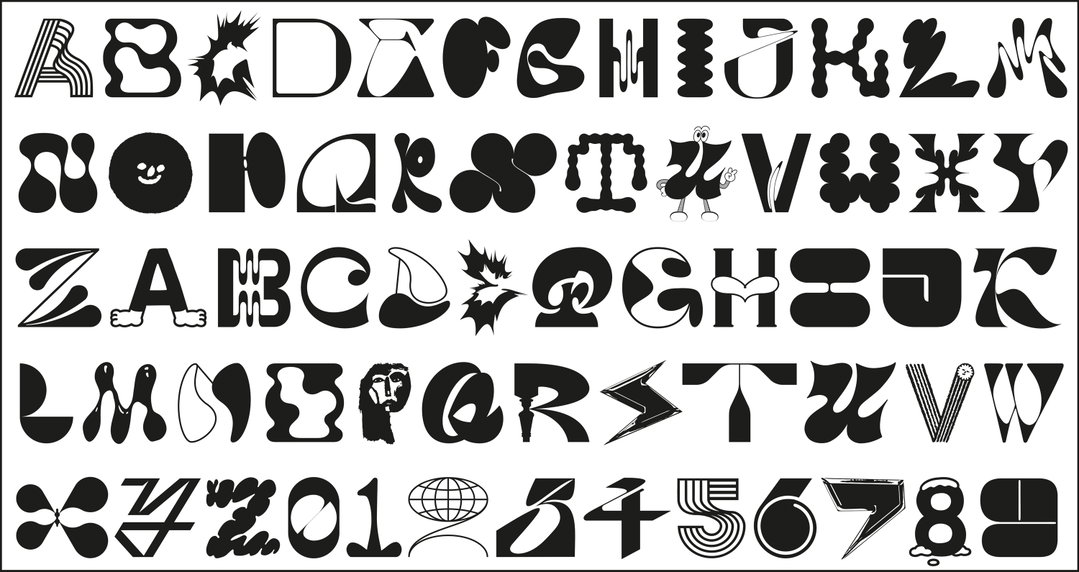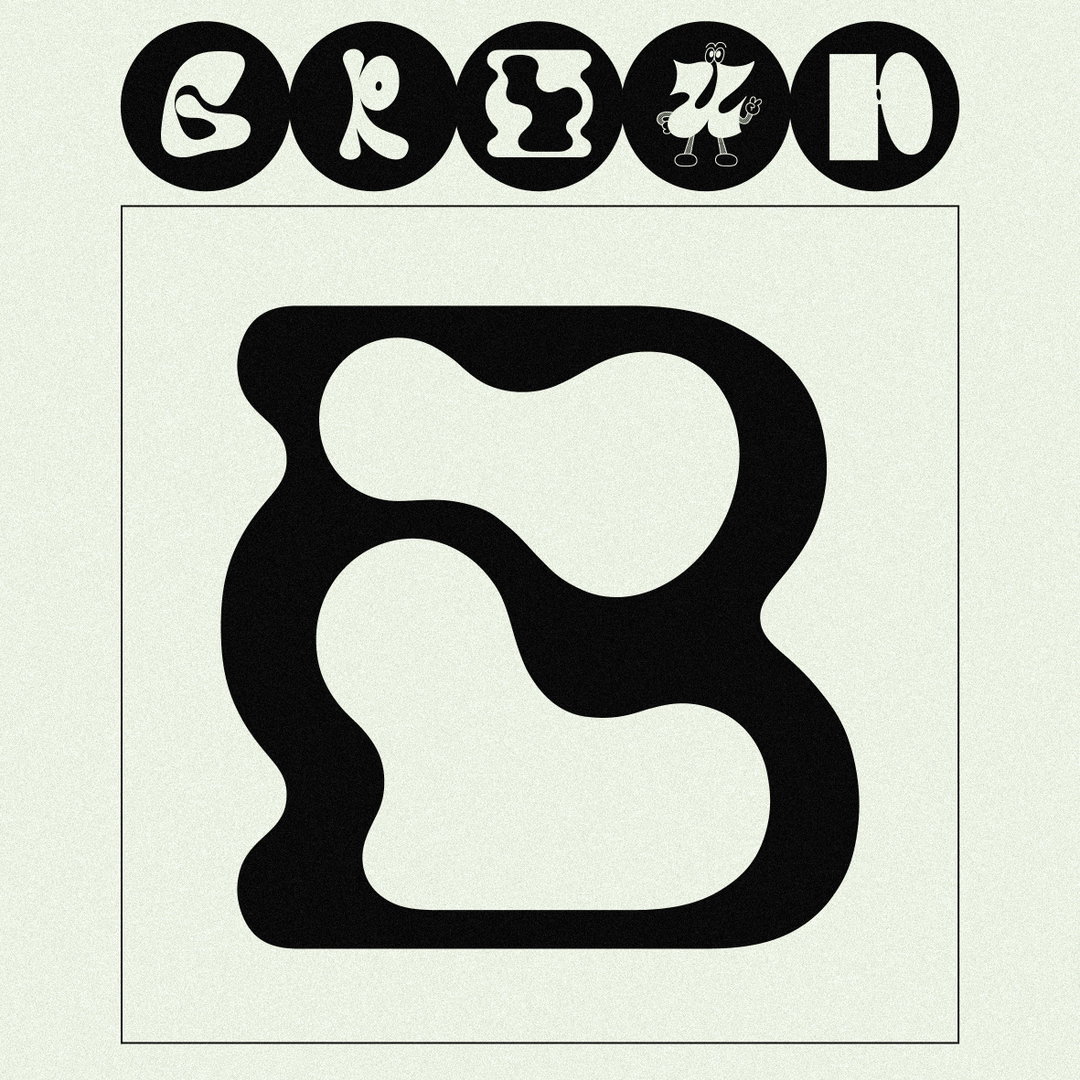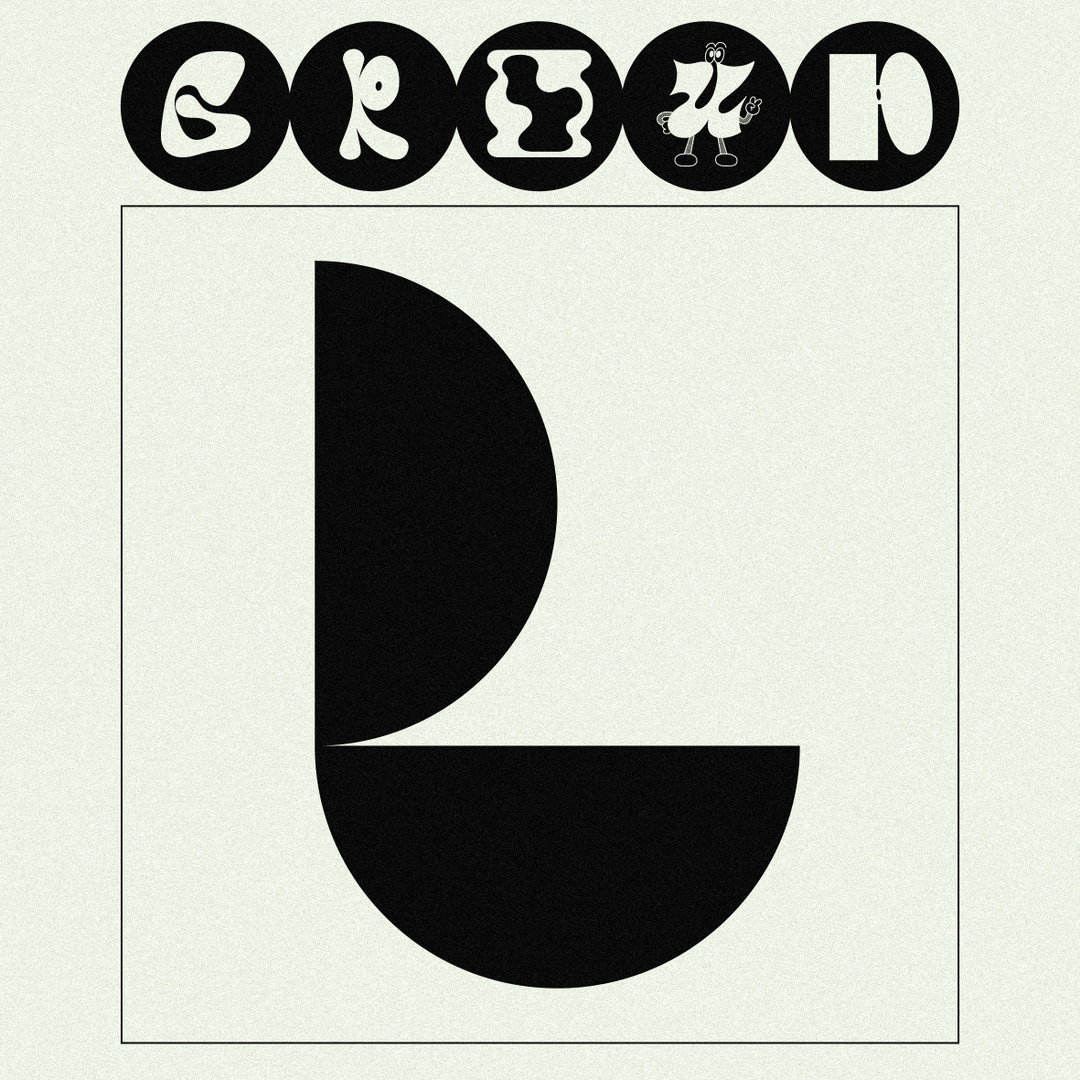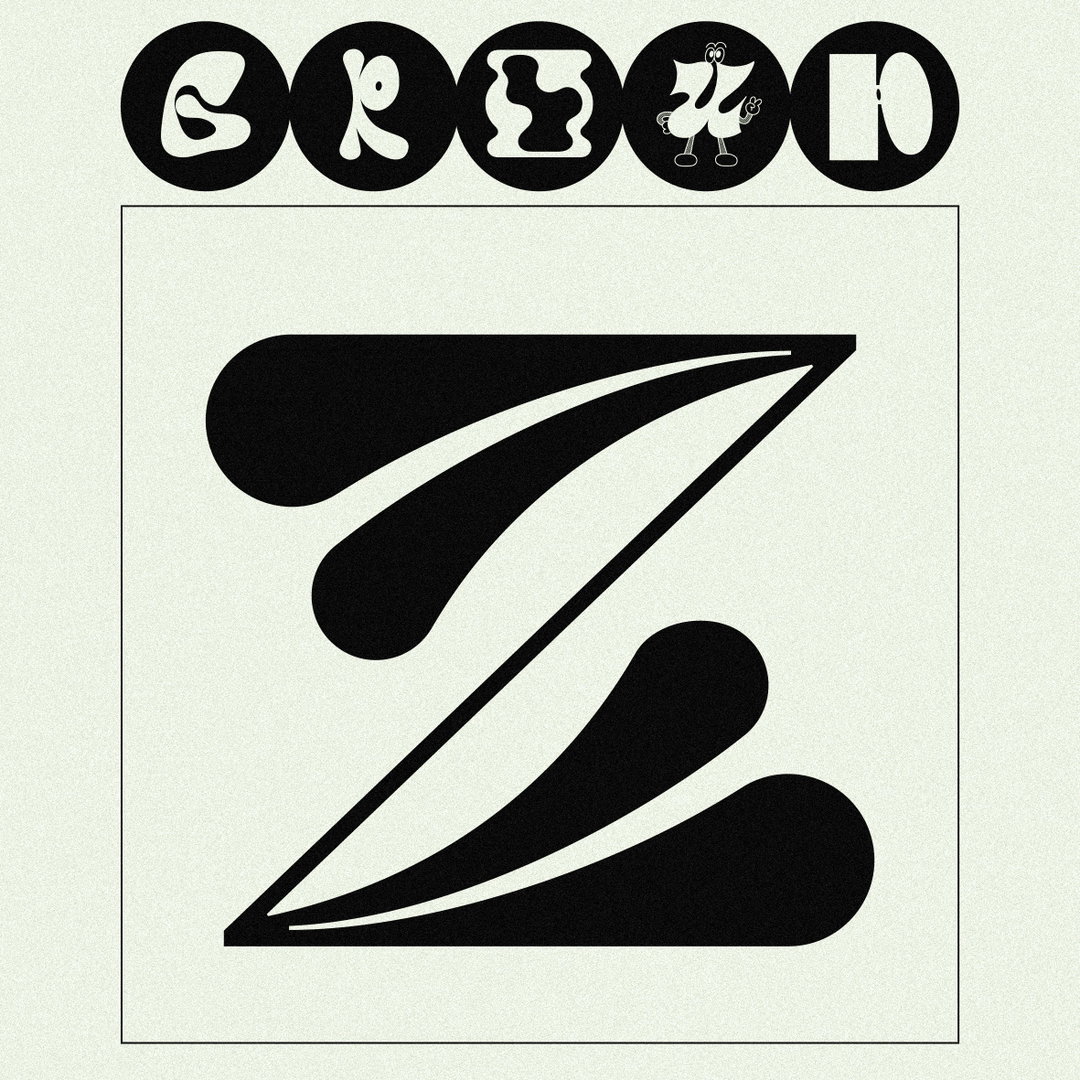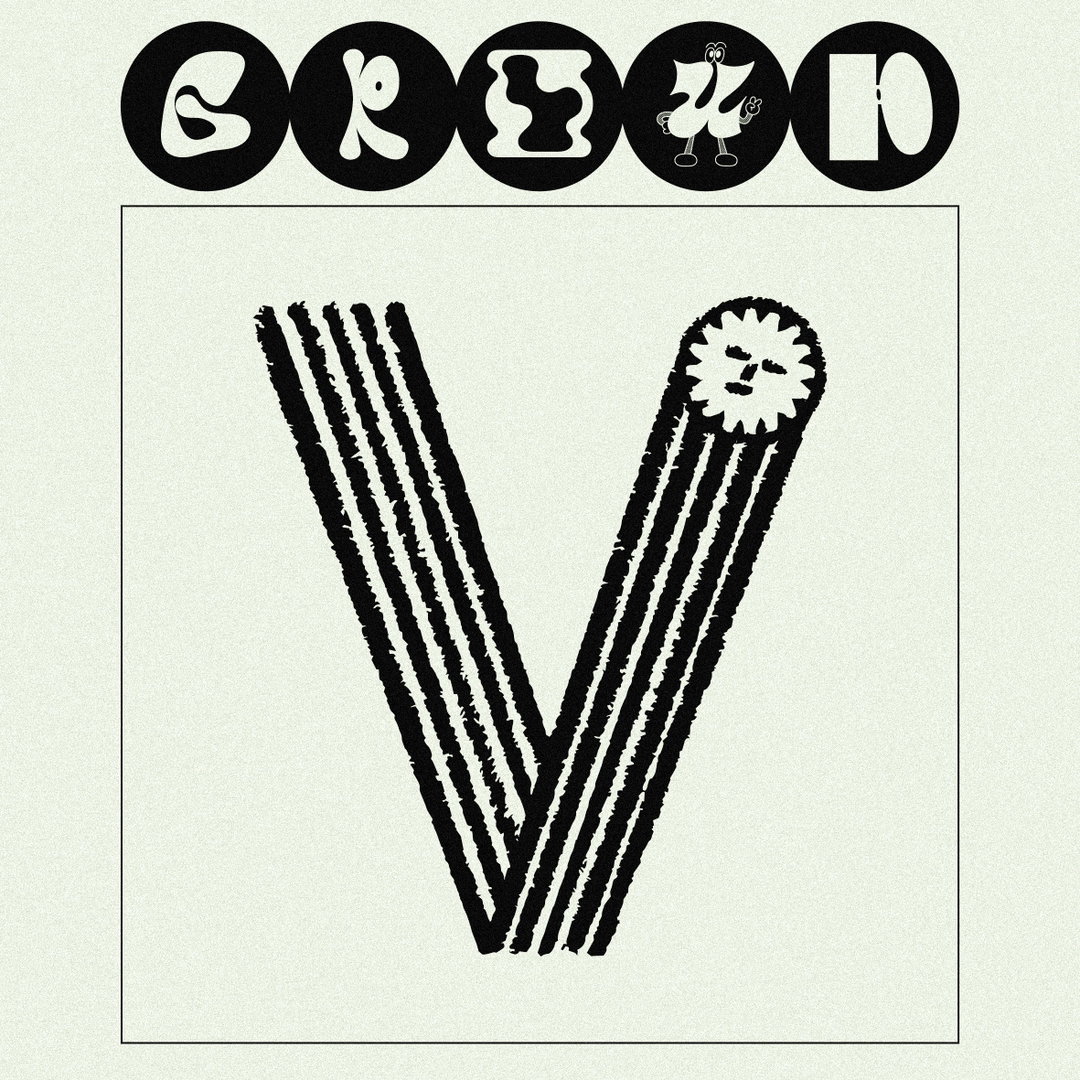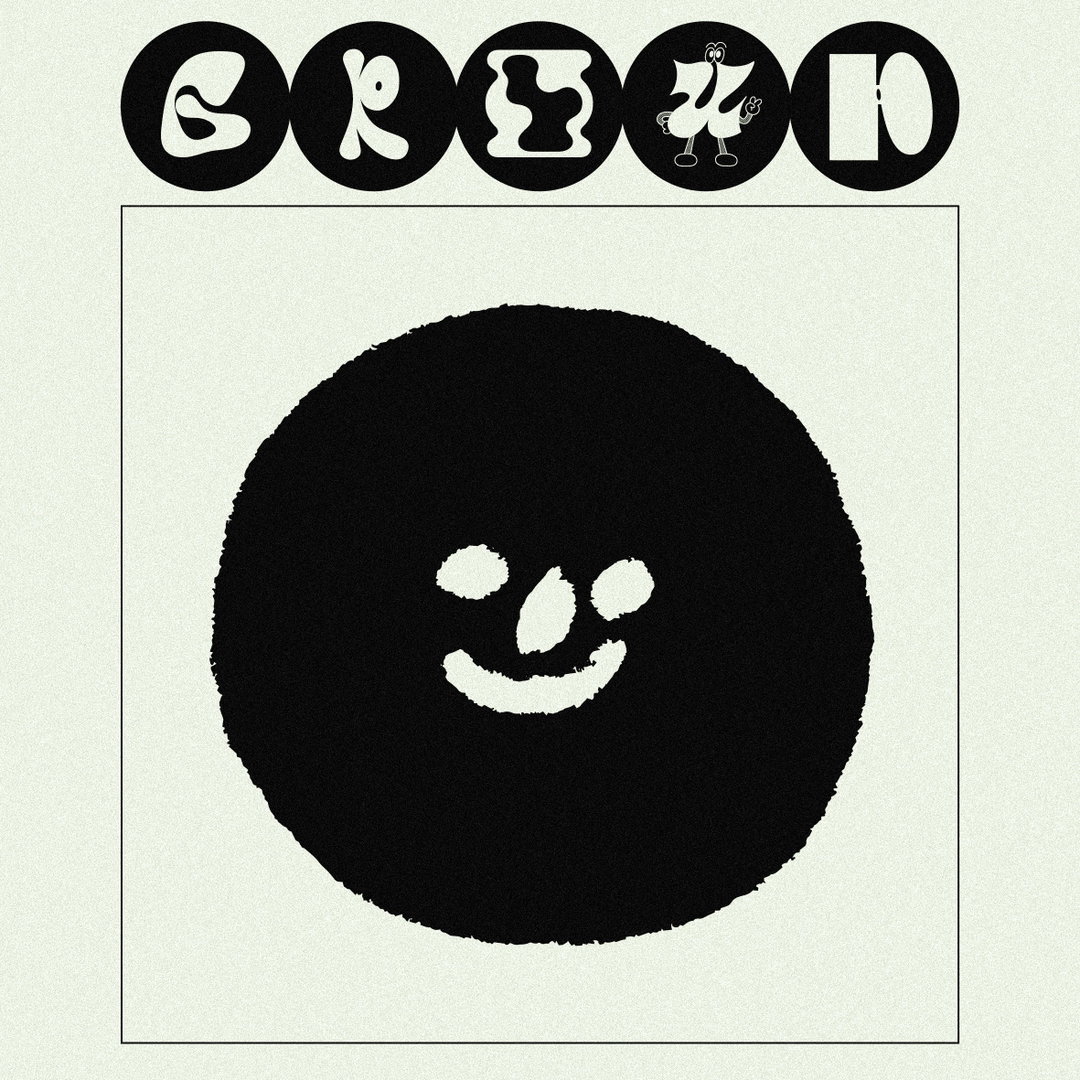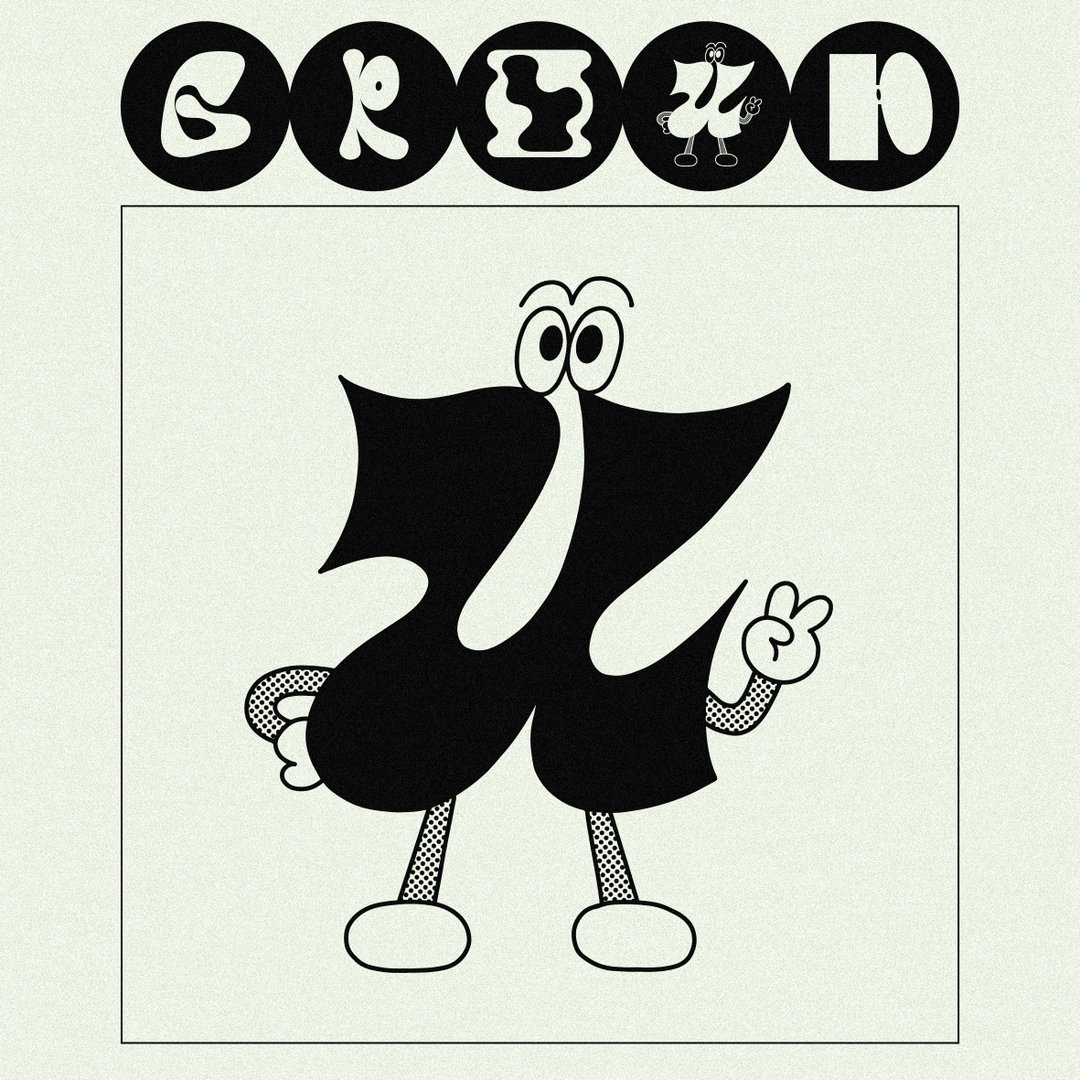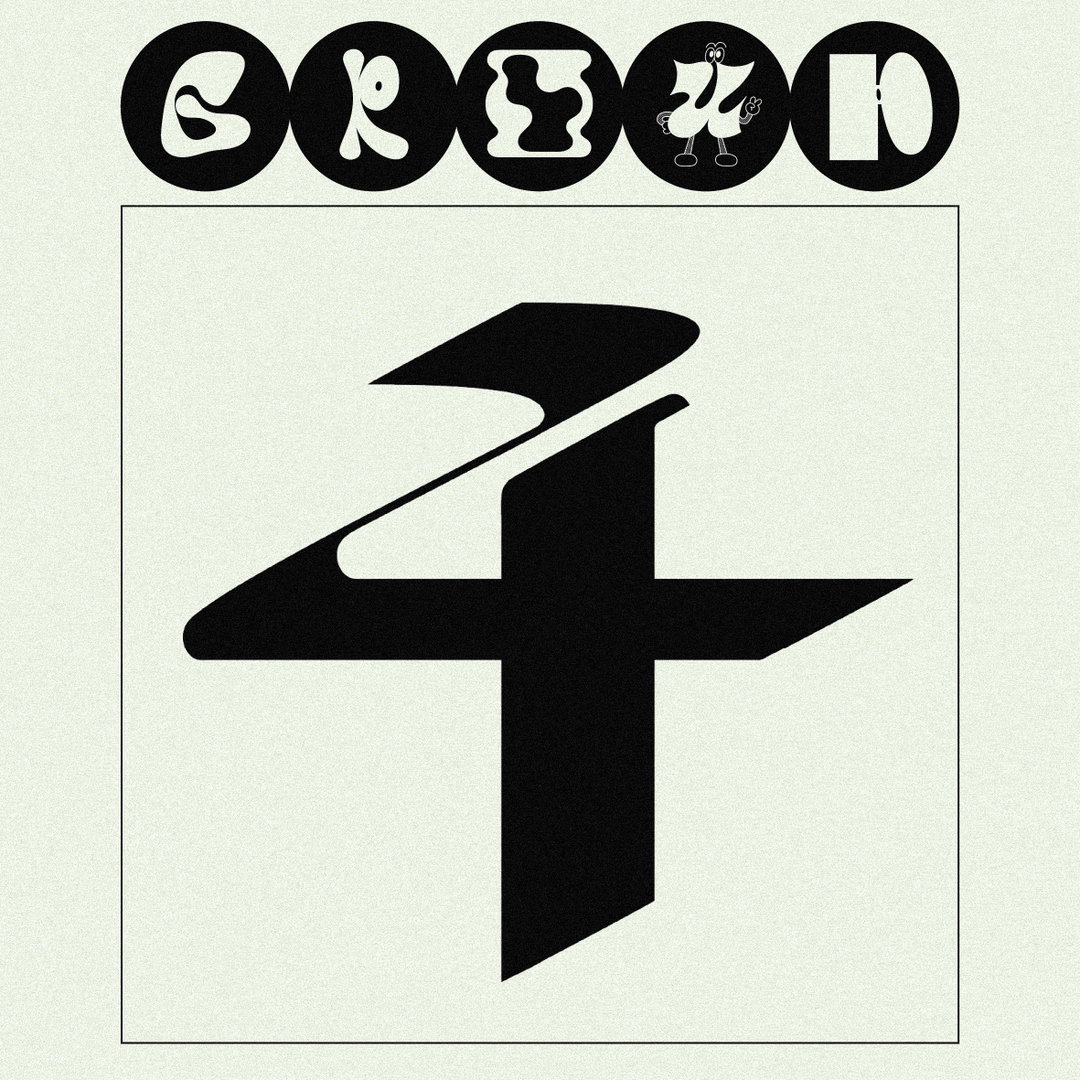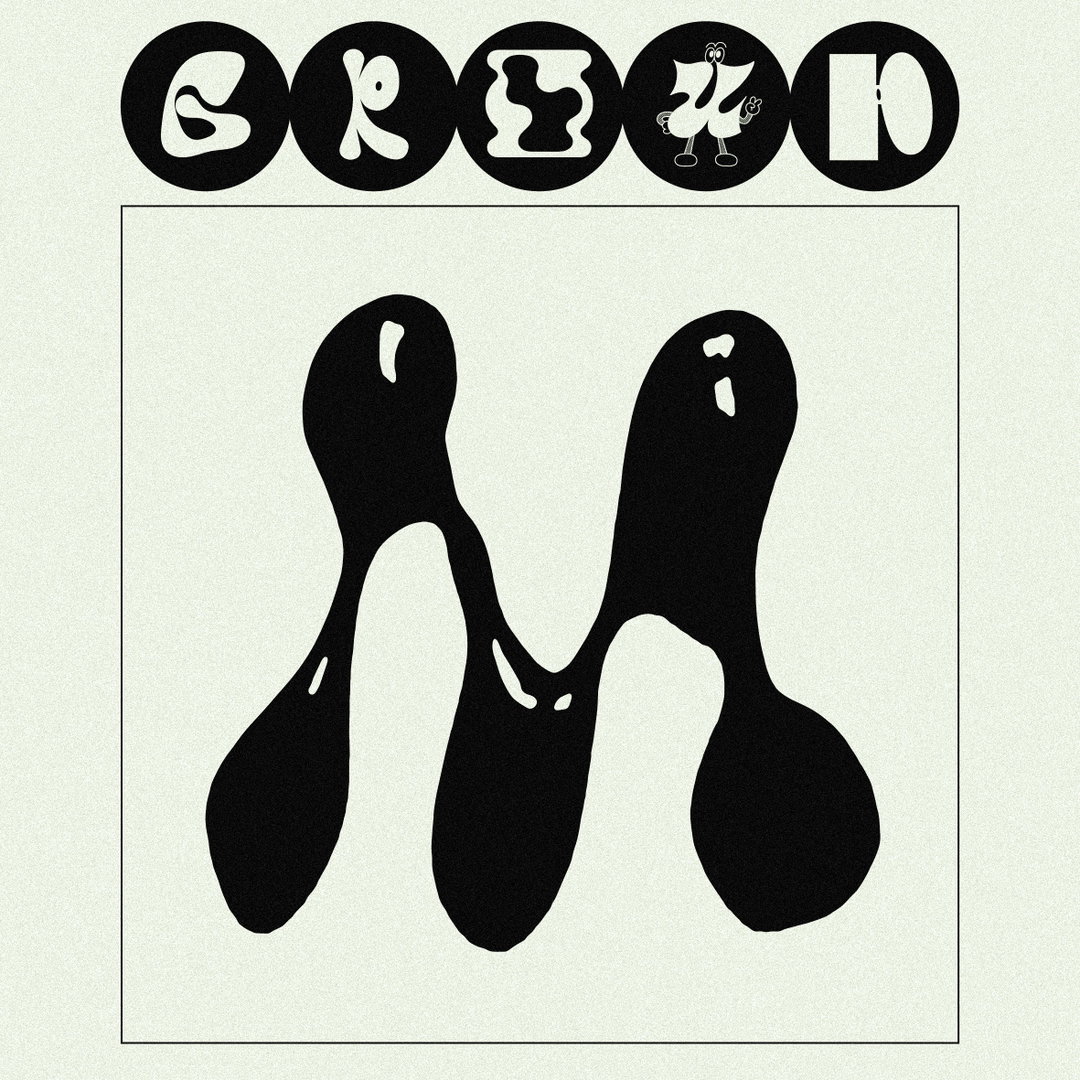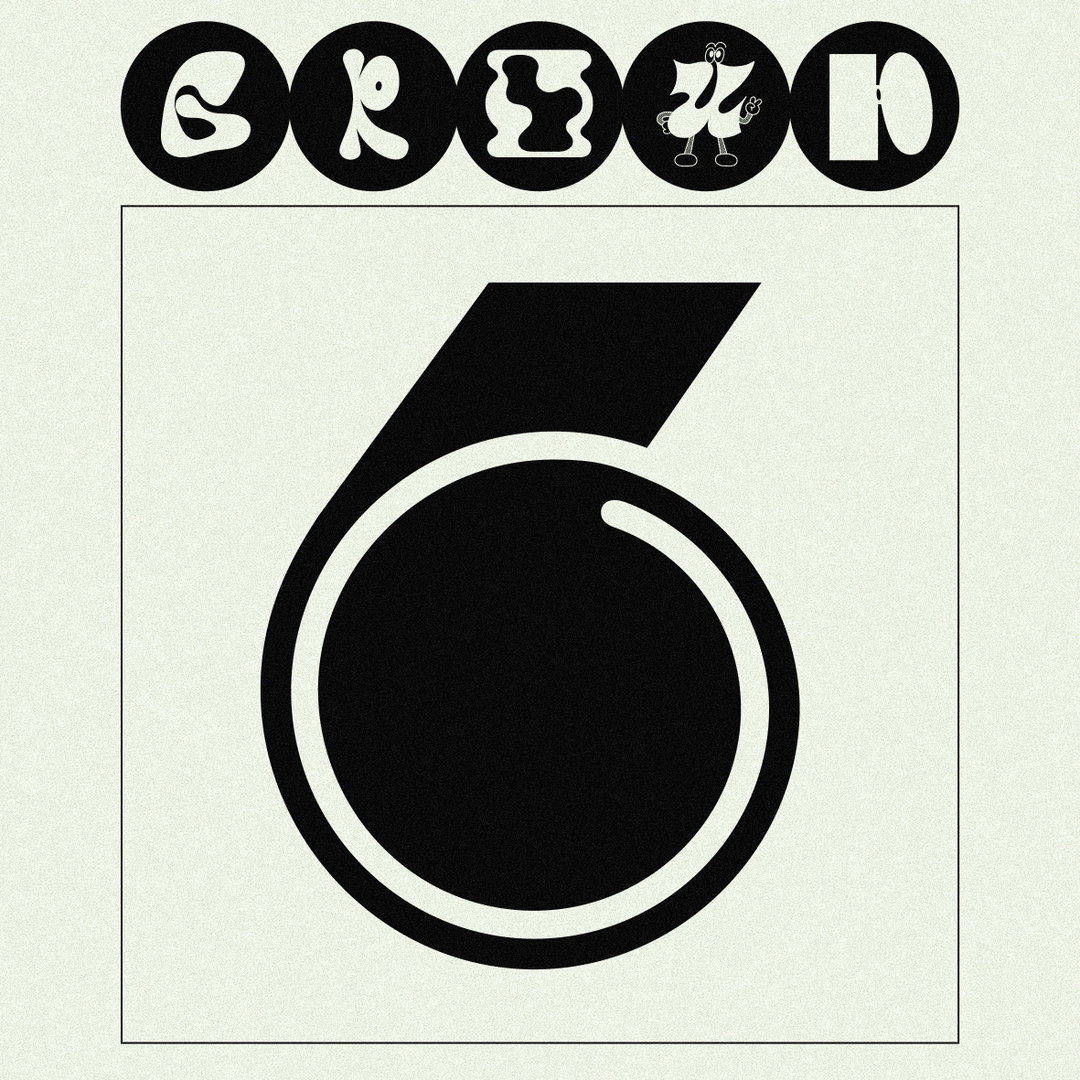
Group Font sees 37 very different creatives contribute a letter
Benedikt Luft, Sophy Hollington and Fisk are just some of the great names behind this global typographic project by Raissa Pardini raising money for WHO.
“Usually fonts are made of letters that follow a certain style,” begins Raissa Pardini of her mega typographic project, released today, but Group Font is different. This new rule-breaking typeface is purposely irregular, as each letter and number has been crafted by a different creative – such as Aaron Lowell Denton, Benedikt Luft, Sophy Hollington, Fisk Projects, Gabriel Alcala and Nam Huynh – in keeping with their own unique aesthetic, to “bring the diversity of each designer,” Pardini says. In fact there are two versions of every letter of the alphabet, adding even further room for eclectism.
Pardini, a designer who has contributed two letterforms to the set herself, and an activist, was looking for an outlet for her anxieties around the coronavirus emergency and, importantly, a way to help. “I wanted to find a way to use visuals in a positive way during these tricky times, and do something worthwhile.” With a plan to make “the craziest font ever seen!” Pardini started contacting lots of her favourite creatives from around the world to ask if they'd take part. “Design can be powerful, but even more powerful if it's done together as a group,” she adds.
The brief was open, asking everyone to “use their own style and do their own thing,” with one caveat that the design was not inspired by the virus in name or style, to keep things positive. “We did have to start from somewhere so I gave everyone some guidelines in size, colour and a mood board which was purely aesthetic and neutral. It could have ended up looking really bad! But each letter is so different yet totally together. We gambled by breaking font rules but the result, honestly, makes me so so proud.”
There are illustrators, graphic designers, typographers, product designers and artists involved (full list below), each bringing “their own world” to their character contribution. “Some letters are more beautifully illustrated while others are technically impeccable,” Pardini says. However, designs are remaining anonymous so for now you'll have to guess who designed which (until they start popping up on their Instagrams).
There were challenges along the way, of course, but everyone was happy to help, she says, and “quick to make adjustments to keep the whole font in line. It's been an amazing reality check on how strong the creative community can be on a global level and how much we can do together”.
The full list of designers is: Aaron Lowell Denton, Alec Tear, Barbara Malagoli, Ben Tipton, Benedikt Luft, Bijan Berahimi, Brandon Nickerson, Combrisi, Connor Mikita, David Strother, Dnorsen Design, Dominic Kesterton, Ethan Fender, Félicité Landrivon, Gabriel Alcala, Gabinete Exquisito, Gregory Page, Jackie Rivera, Jake Farmer, Jess Ebsworth, Mathery, Nam Huynh, Parco Studio, Polytype, Raissa Pardini, Renato Flores, Robbie Simon, Ruan Van Vliet, Sam Sheridan, Simen Royseland, Sophy Hollington, Stephen Rossi, Studio Sofa, Wedge Studios, Tamara Arkatova, Tiernan Crilley and Tim Presley. Plus web design help from FORM Digital.